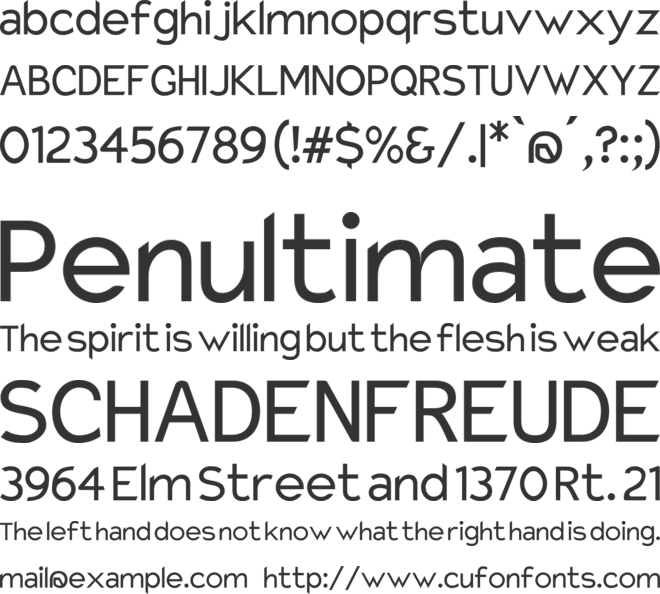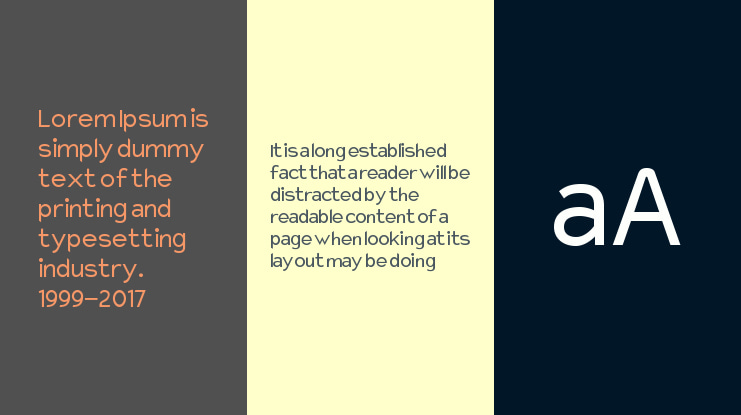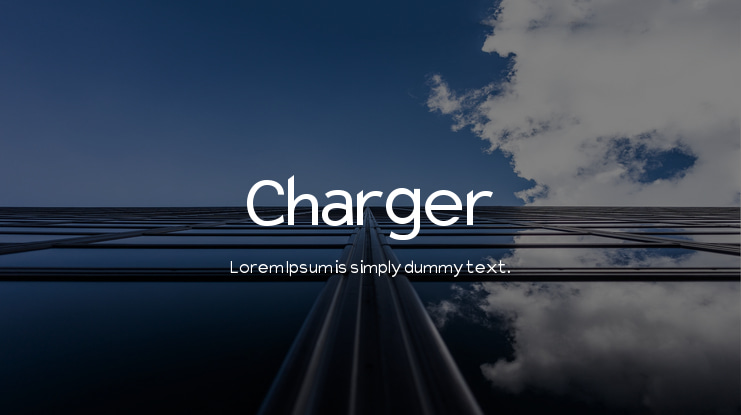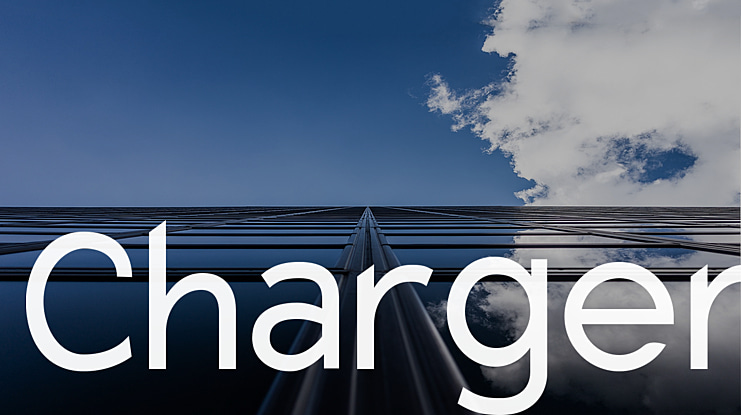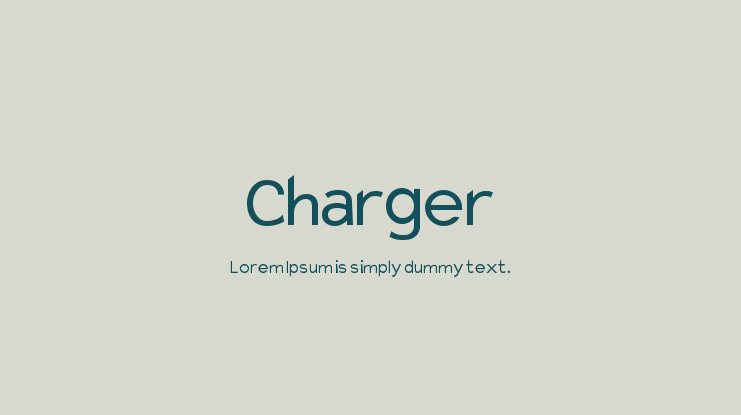
Charger Font Family
Charger is a GeoHumanist font, designed by Jasper @ Cannot Into Space Fonts.
Update: 2 new weights and 2 new italics, bringing the total number of weights up to 8.